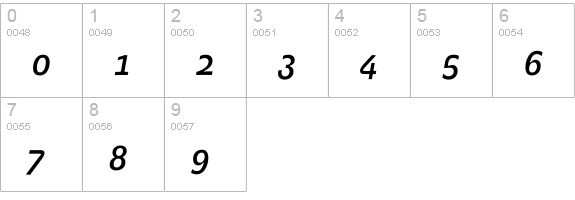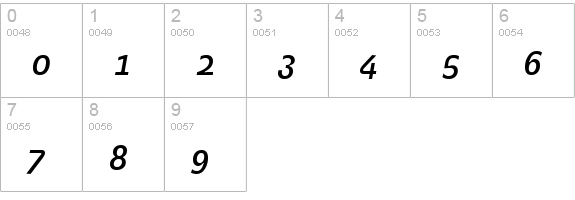
SpotkaMedium Italic is a distinctive, italic variant in the SpotkaMedium typeface family \xE2\x80\x94 well suited to design and typography projects.
SpotkaMedium Italic font is a stylish and modern typeface that exudes elegance and sophistication. Its sleek and slanted design adds a touch of flair to any project, making it perfect for creating eye-catching designs for various purposes. Whether you are designing a logo, website, or print material, SpotkaMedium Italic font is sure to make a lasting impression. What sets this font apart is not only its aesthetic appeal but also the fact that it is available for free download at FontsMarket.com. This means that you can easily access this high-quality font without any cost, making it a valuable resource for designers and creatives looking to elevate their work. With its clean lines, smooth curves, and unique italic styling, SpotkaMedium Italic font offers versatility and versatility, making it suitable for a wide range of design projects. Add a touch of sophistication to your designs with SpotkaMedium Italic font, the perfect choice for those seeking a blend of elegance and modernity.